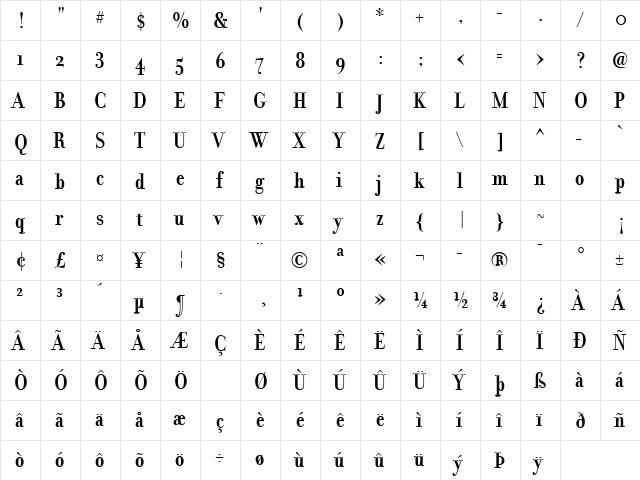
FilosofiaGrandBold Bold
Design Context for FilosofiaGrandBold Typeface
FilosofiaGrandBold offers clean, dependable letterforms without strong stylistic allegiance, making it a practical choice for designers who need flexibility. The heavy weight commands attention and anchors typographic hierarchies.